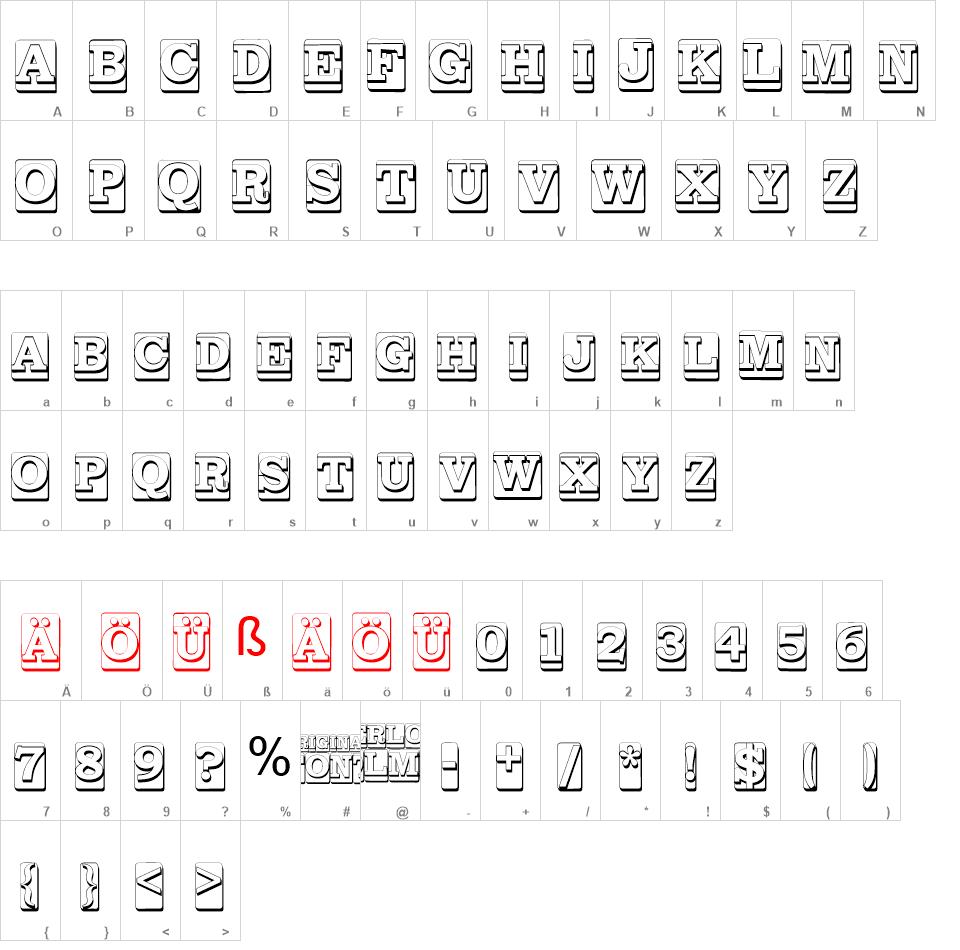
Sherlock Holmes
Sherlock Holmes font
Sherlock Holmes
SHERLOCK HOLMES font: directly from the Best movie by GUY RITCHIE, with ROBERT DOWNEY JR., the original font for all lovers.